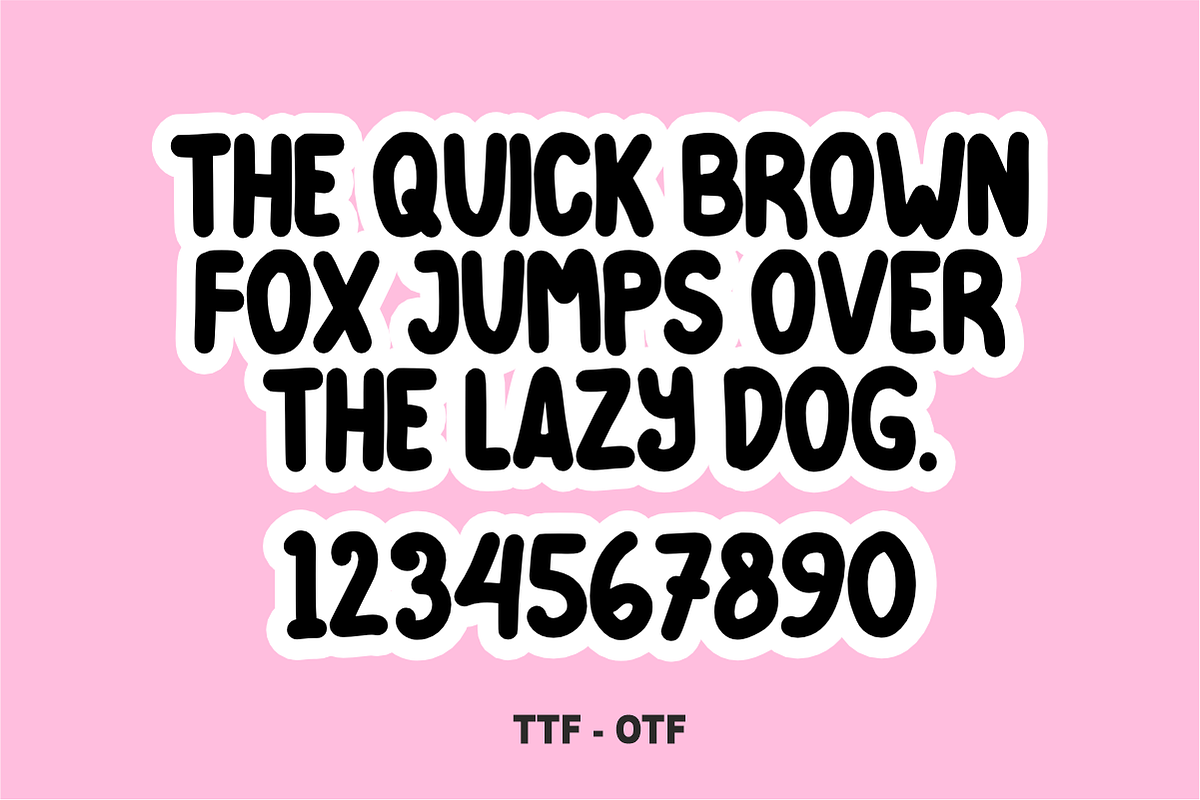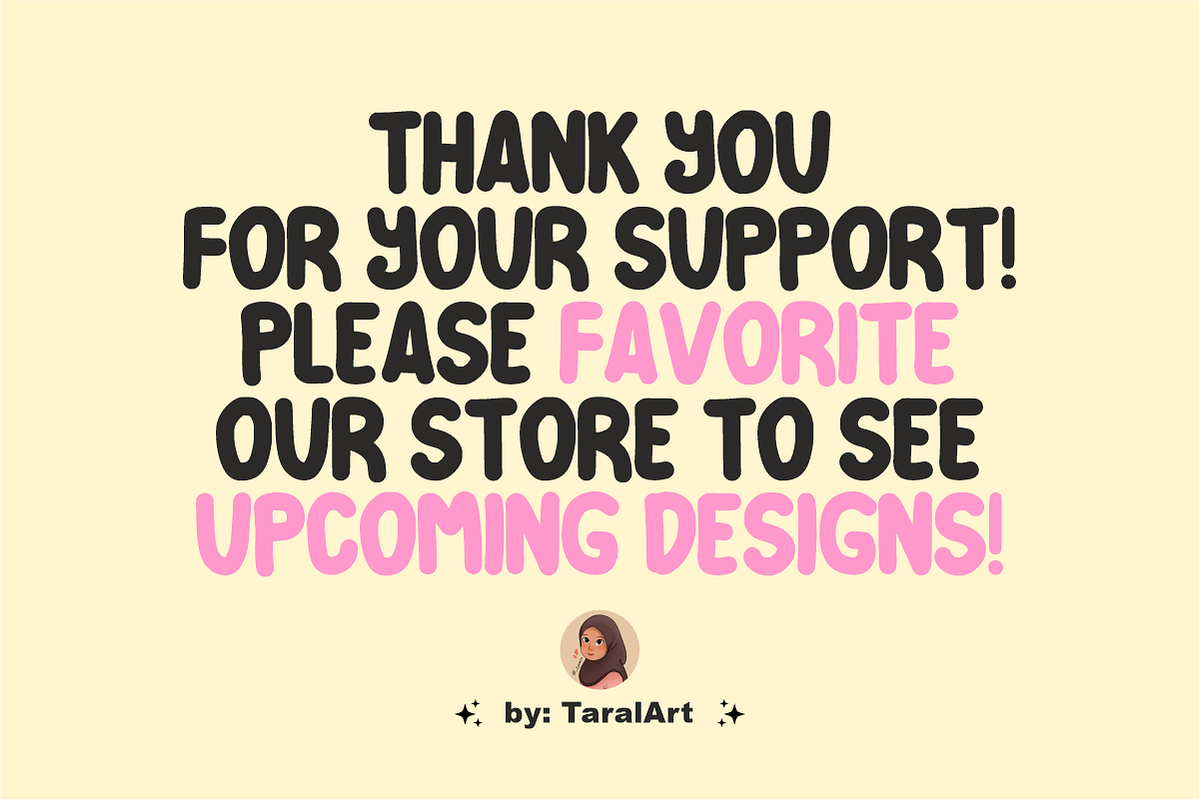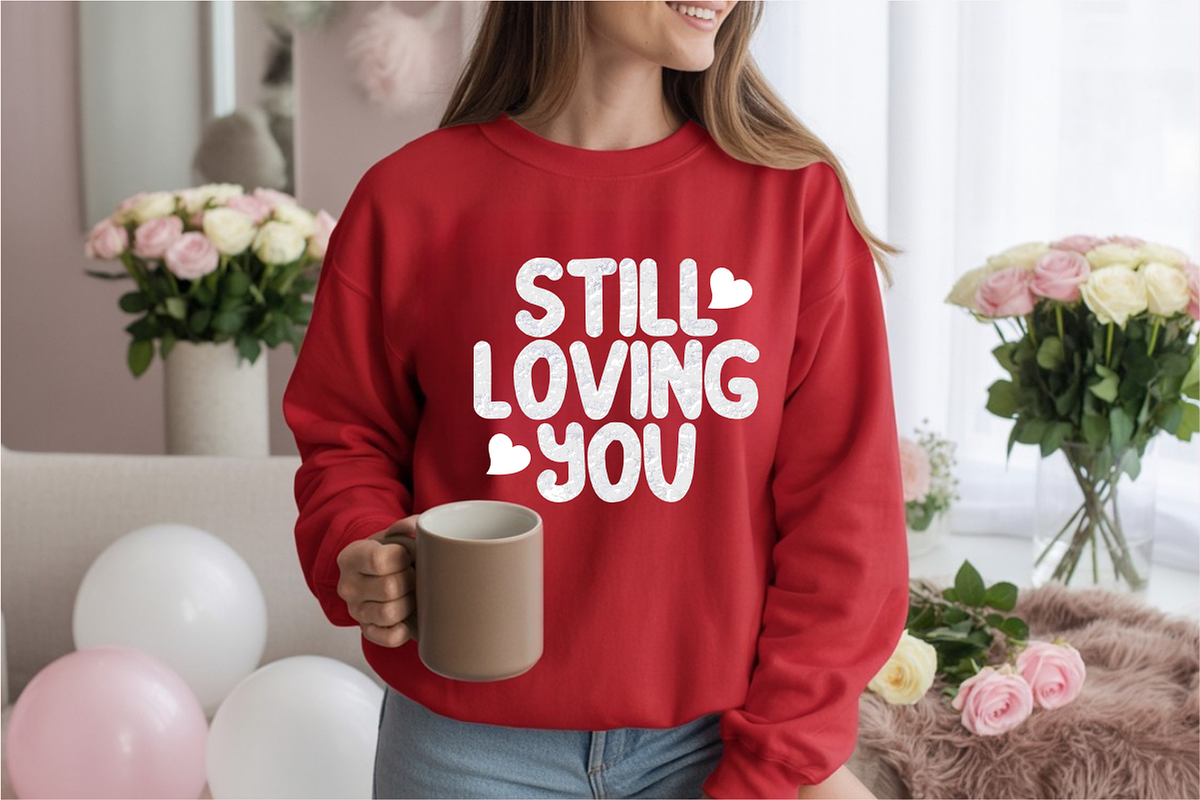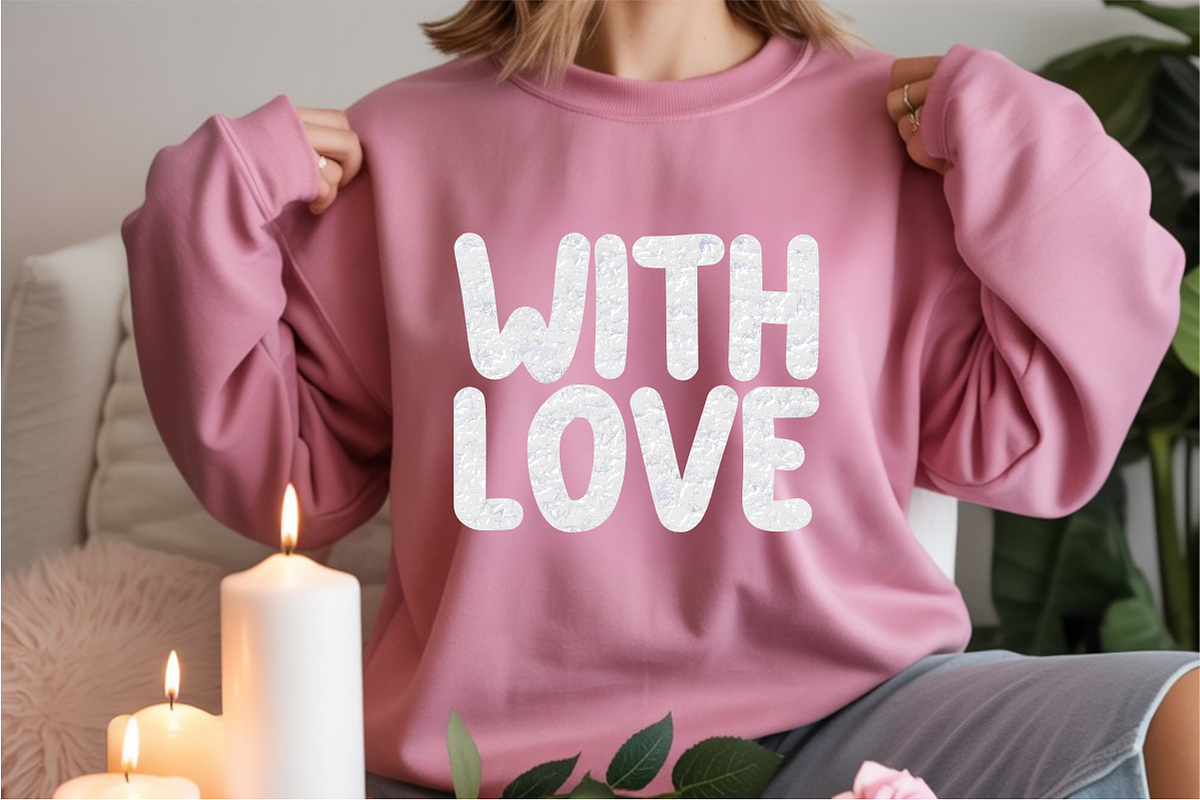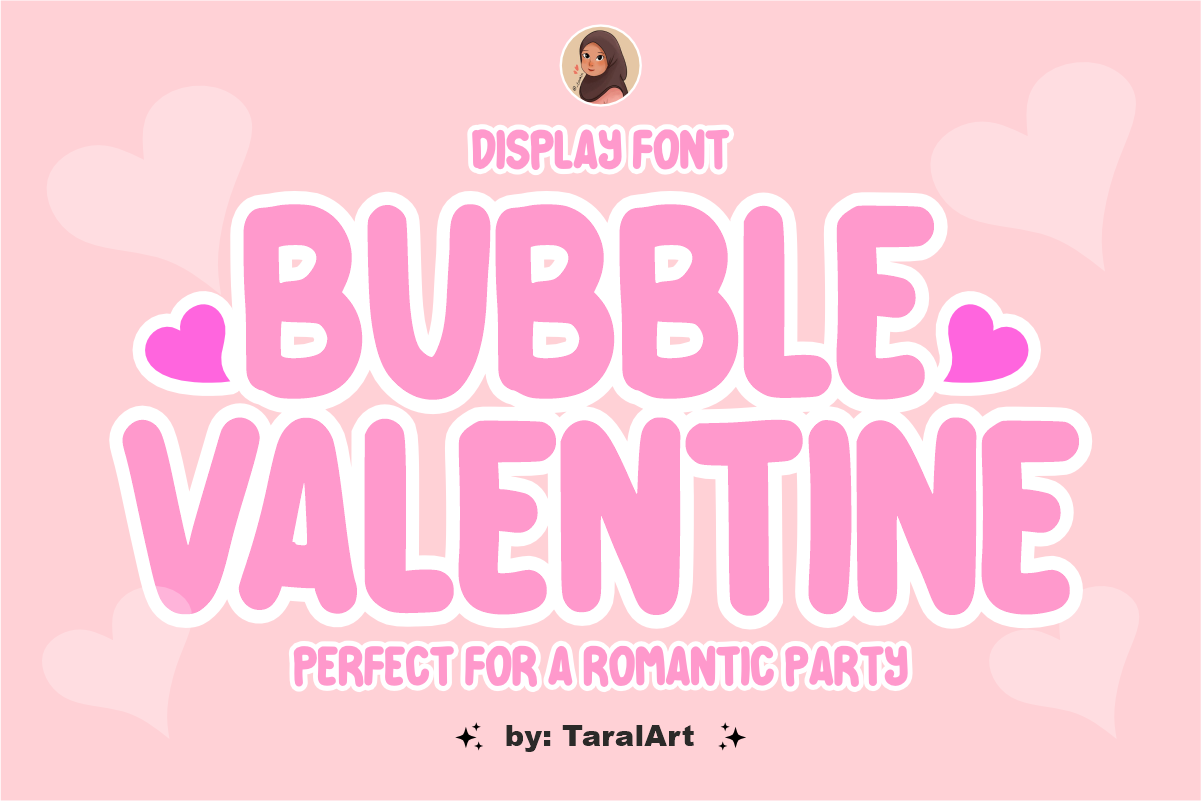
Bubble Valentine - Valentine Font
Bubble Valentine is a sweet, ultra-chunky display font featuring soft, rounded letterforms and a playful cartoon style. Perfectly designed for Valentine's Day themes, romantic events, and lovely craft designs, this puffy bubble font adds an instant cheerful and affectionate vibe to any headline. Every character is cleanly vectorized to guarantee smooth, effortless cutting on Cricut and Silhouette machines.